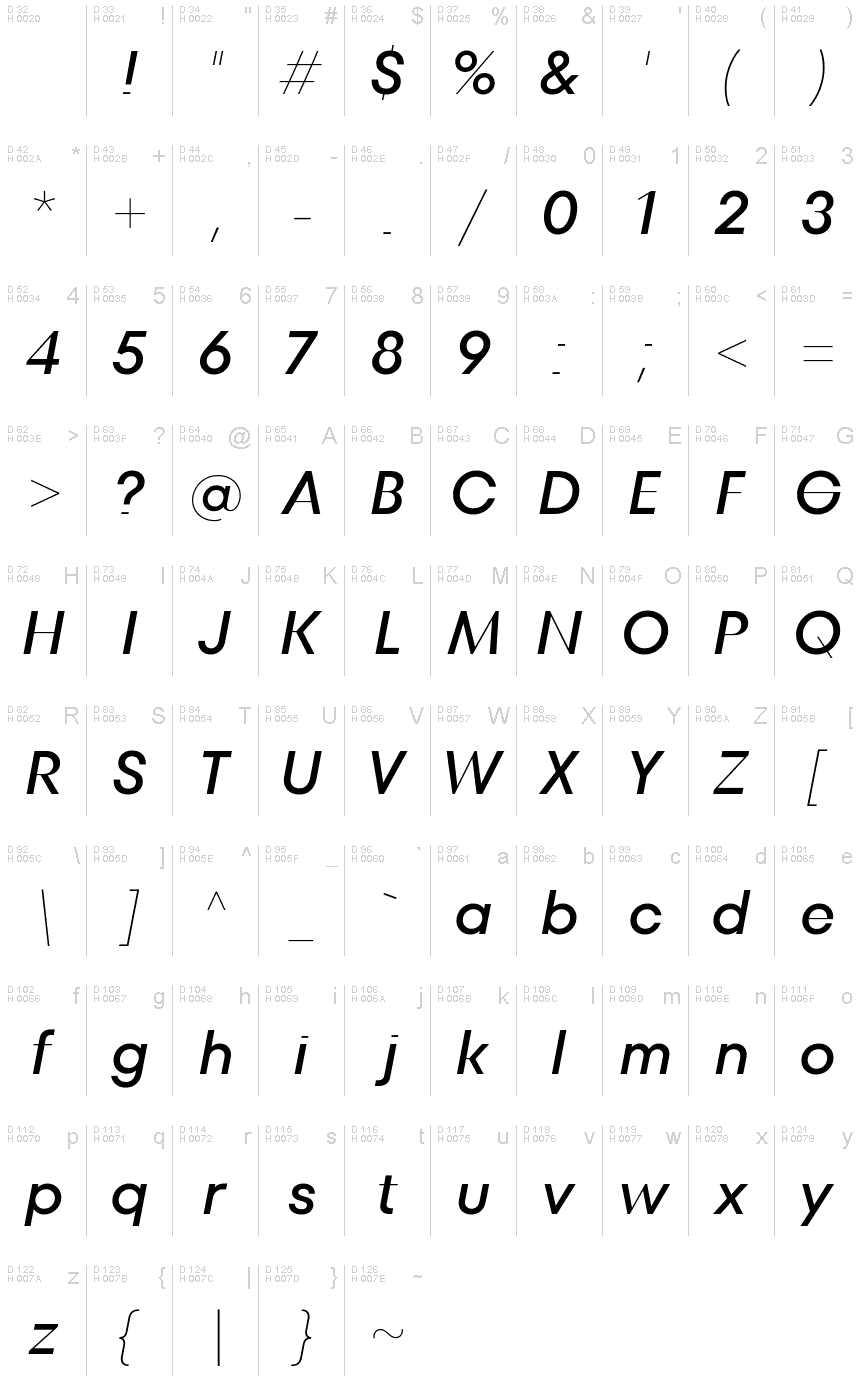
TT Fors Display Trl Medium Italic
TT Fors Display Medium Italic is a stunning sans serif font designed by the TypeType Foundry. With its semi-light weight and italic style, this font is perfect for projects that require a modern and sophisticated touch. The clean lines and elegant curves make it suitable for branding, advertising, editorial design, packaging, and much more. Whether you're designing a sleek website or an eye-catching print ad, TT Fors Display Medium Italic will add a touch of class to any project. With its versatility and unique style, this font is sure to make your designs stand out from the crowd!